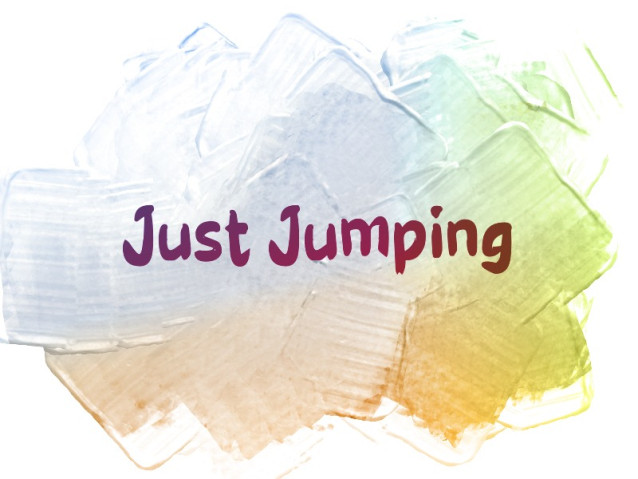
Just Jumping Font
Just Jumping Font is a striking, hand-drawn brush font designed to bring raw energy and an authentic, handmade feel to your creative projects. With its thick, textured strokes and natural dry-brush aesthetic, this font captures a sense of movement and unrefined power.